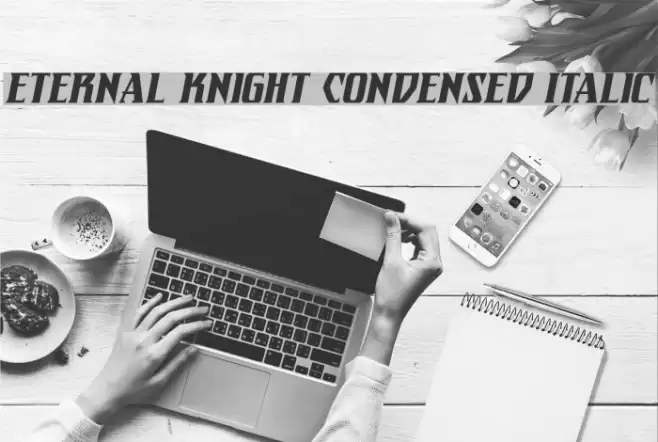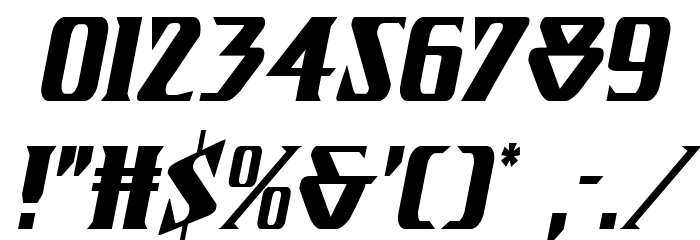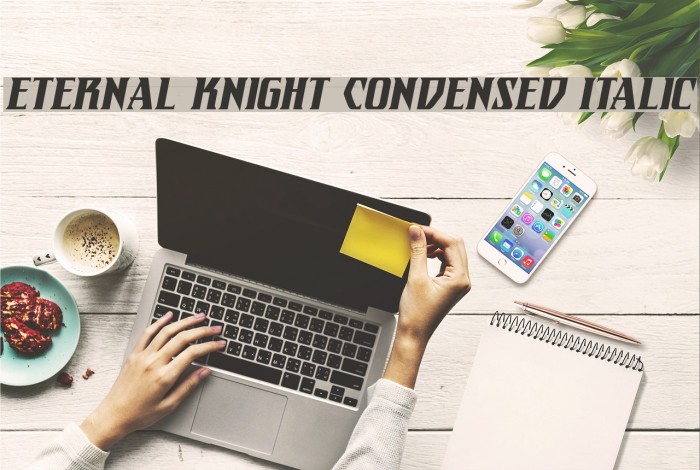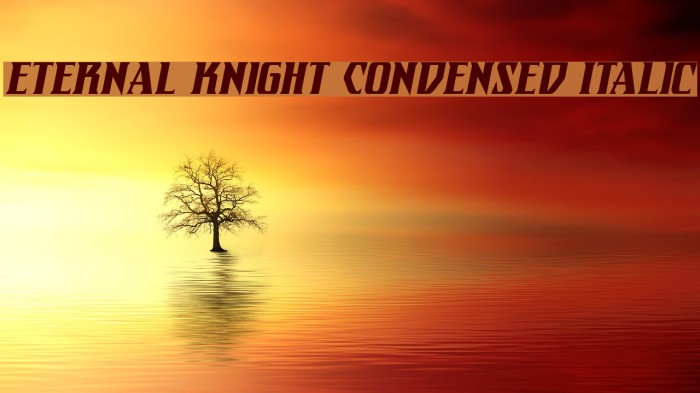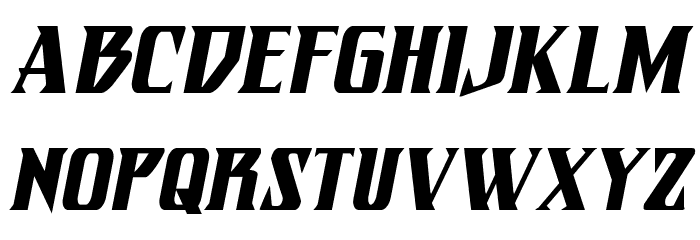
Eternal Knight Condensed Italic Font
Eternal Knight Condensed Italic Description
This font features a bold and dynamic style with a condensed and italicized form, giving it a strong and energetic appearance. The characters are sharply angled, with a distinct slant that adds a sense of movement and urgency. The uppercase letters are particularly striking, with a bold presence that commands attention. The lowercase letters maintain the same dynamic style, ensuring consistency throughout the text. Numbers and special characters are designed to match the overall aesthetic, making this font versatile for various uses. The condensed width allows for efficient use of space, making it ideal for headlines or impactful statements.
A bold, condensed italic font with a dynamic and energetic style from Uncategorized fonts.
- Proposed Projects: Ideal for sports branding, action movie posters, dynamic advertising campaigns, and any project requiring a bold, energetic typeface.